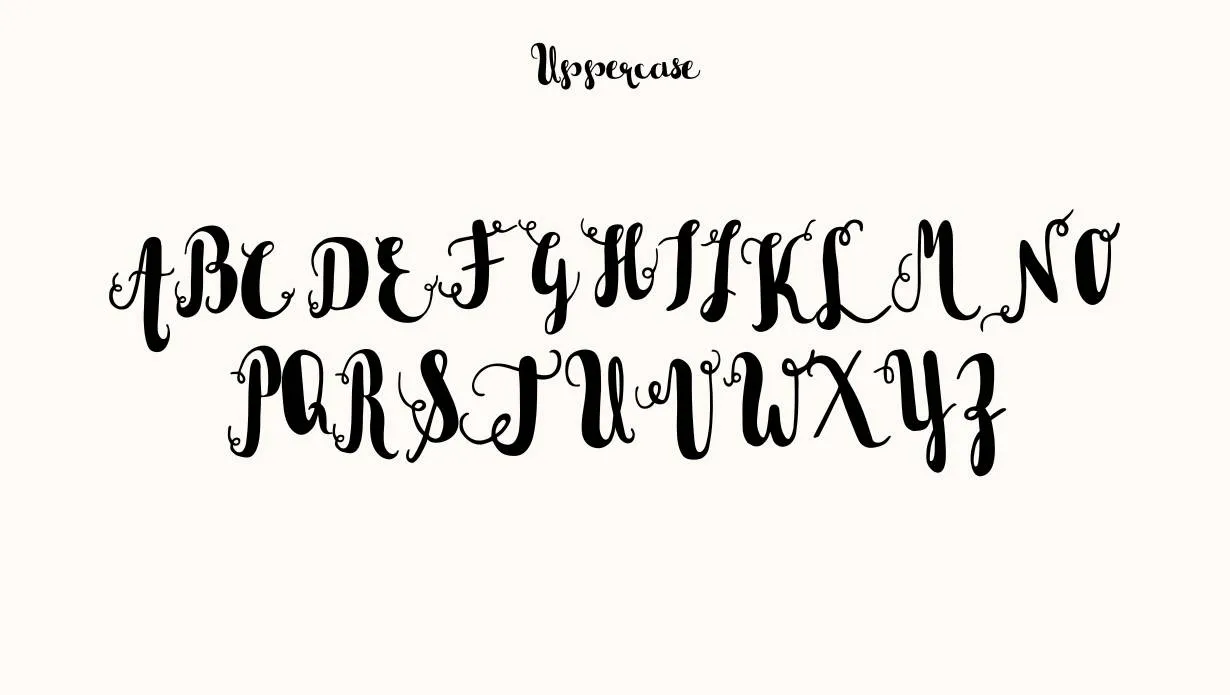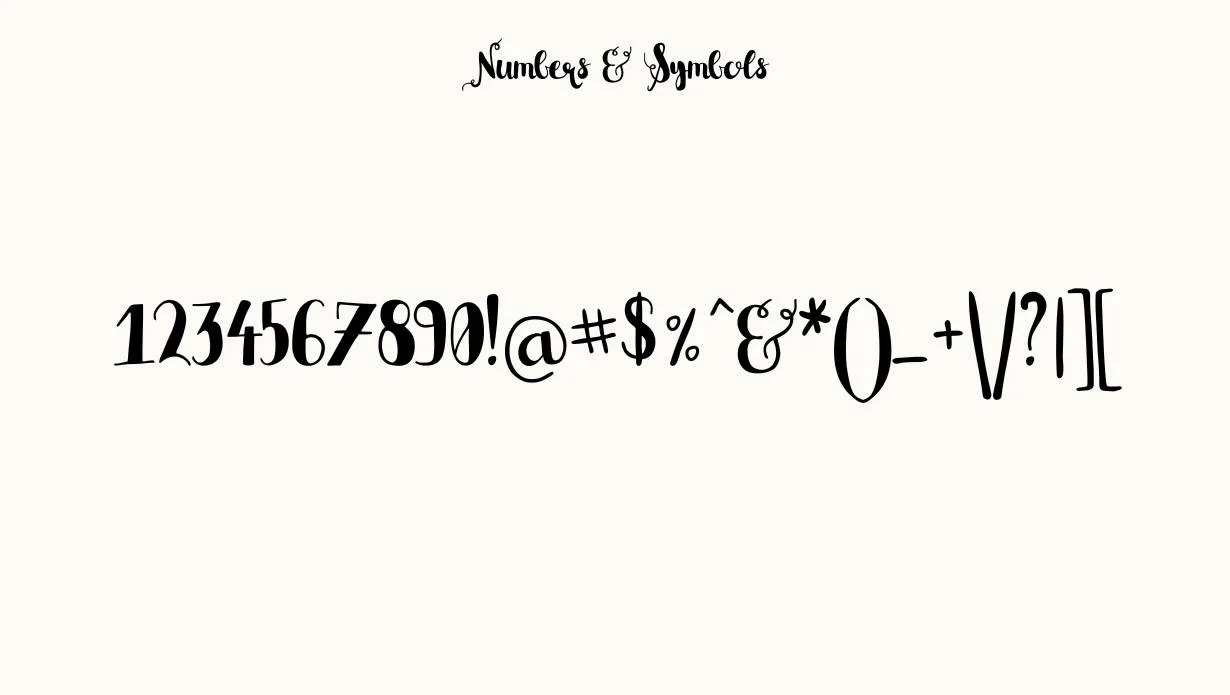
Little Cutie Font has a playful and whimsical design that’s perfect for children’s books, invitations, and creative branding.
When striving for a design that stands out and captures attention, the key is to pair this font with the Sangharia Font. Its unique and cheerful letterforms add a sense of fun and creativity to your designs.